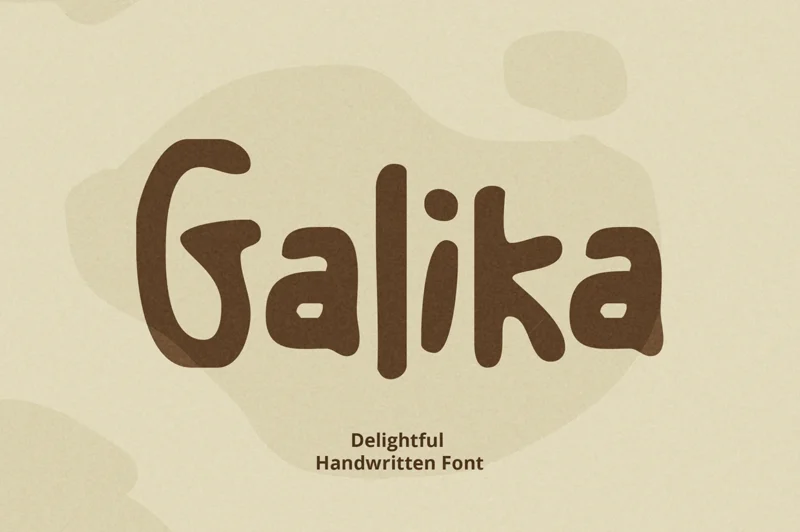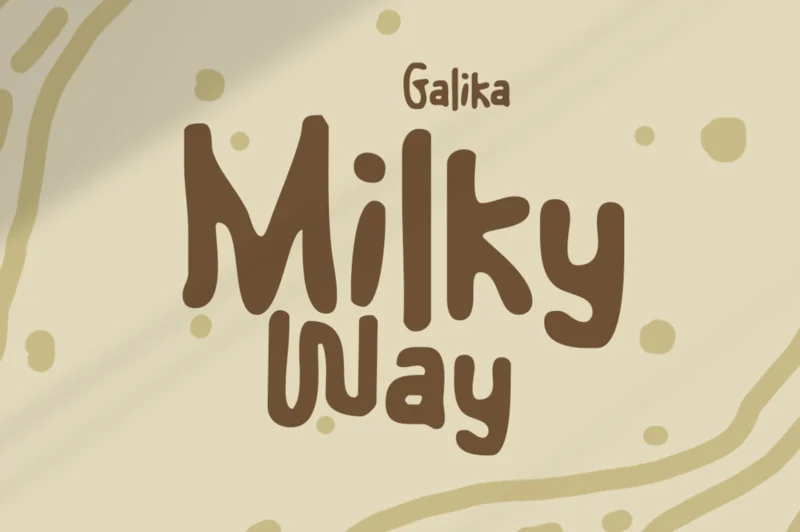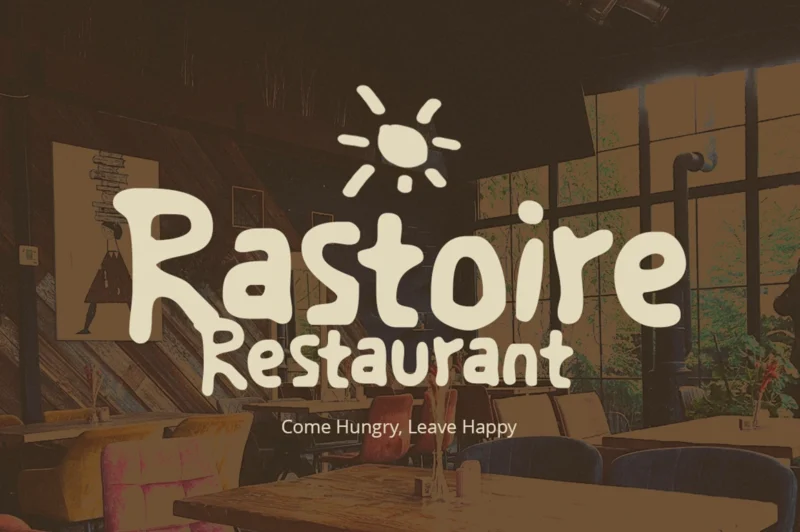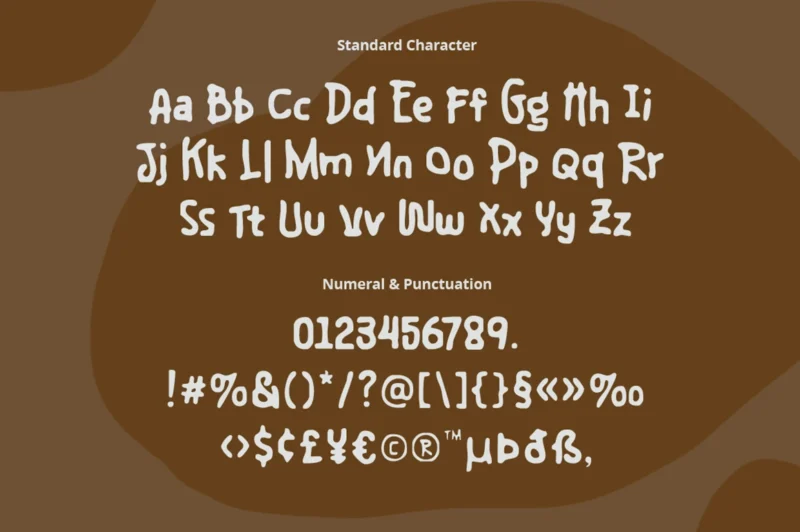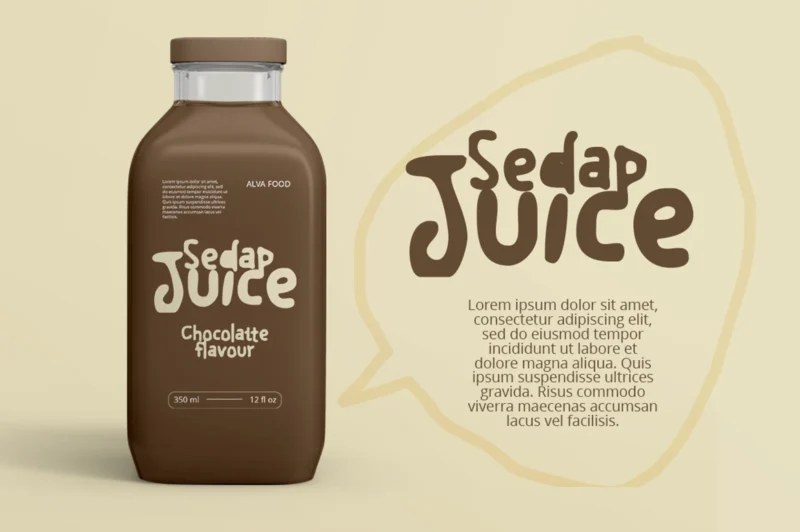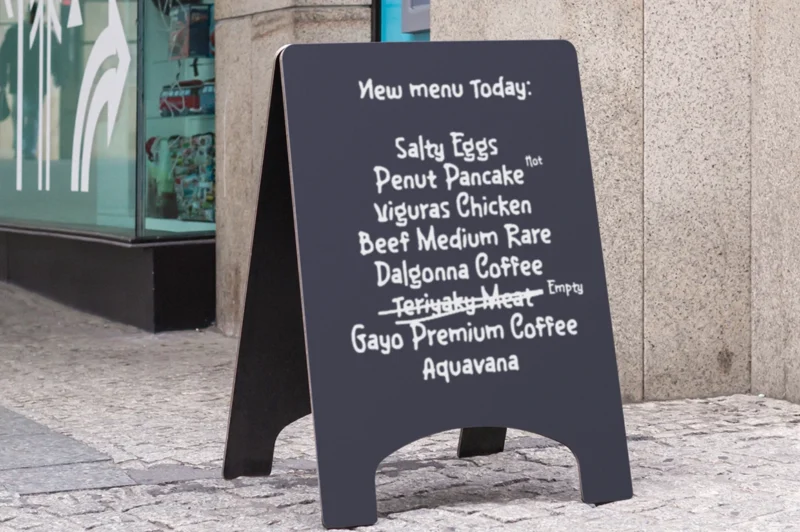
Galika is a delightful handwritten font with a natural, playful charm. Its casual strokes and organic letterforms create a warm, personal feel, making it perfect for creative projects that need a touch of friendliness. Galika works beautifully for quotes, branding, social media, invitations, and other designs that call for an expressive, handmade look.
- Delightful and Playful Font
- Basic Latin Glyphs
- ligatures & Alternates
- Numeral and Punctuation
- Currencies
- Multilingual Support